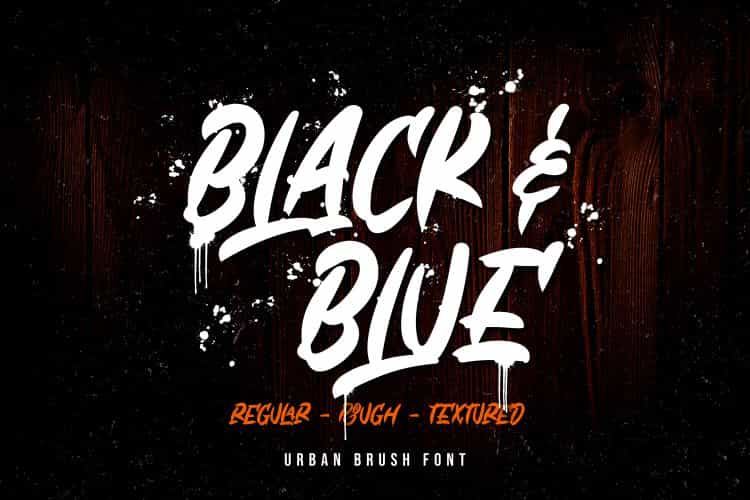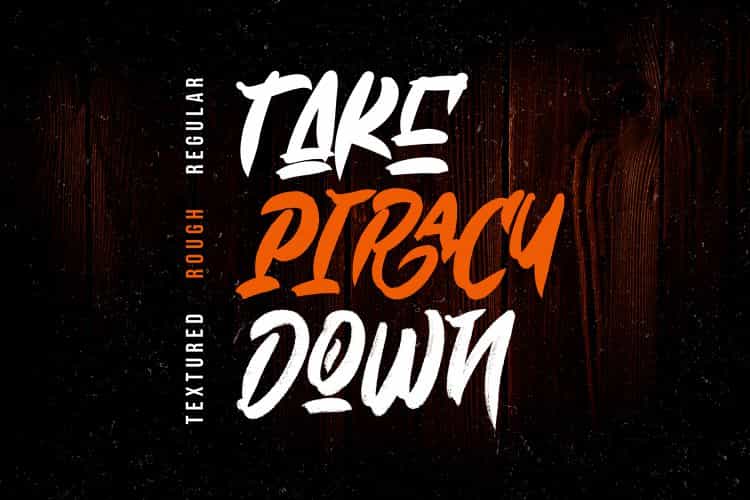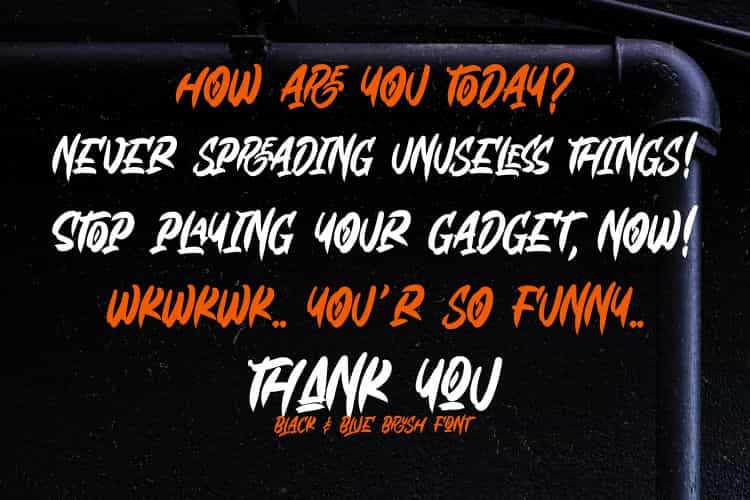
Black & Blue! A brush font with 3 styles, regular (clean), rough, and textured. Black & blue font is ideal for logos, apparel, T-shirt, Hoodie, quotes, product packaging, or anything which needs a typographic turbo-boost.